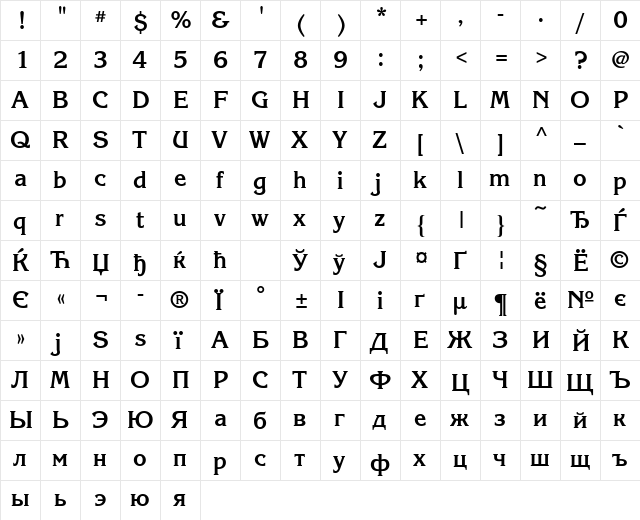
KorinnaCTT Bold Font Preview
KorinnaCTT Bold
Design Context for KorinnaCTT Typeface
KorinnaCTT takes a measured approach to typography — its balanced proportions and neutral character make it a reliable workhorse for both digital and print work. Its bold stroke weight gives it real presence on the page.